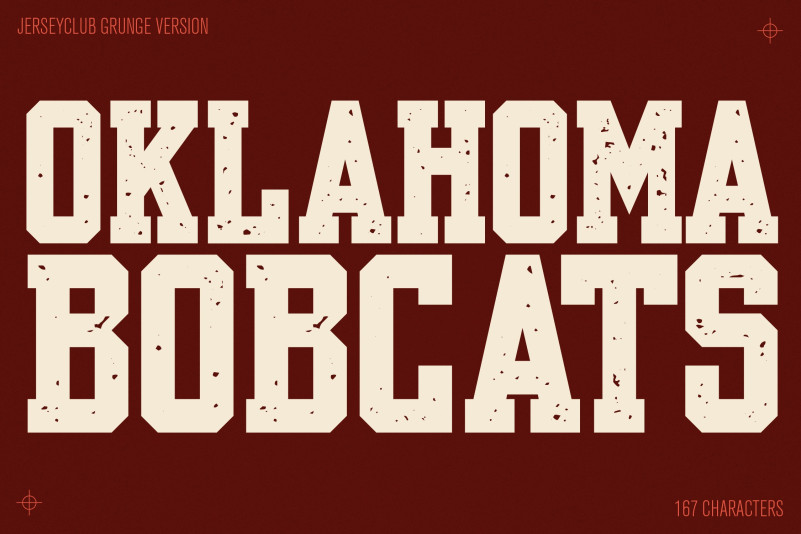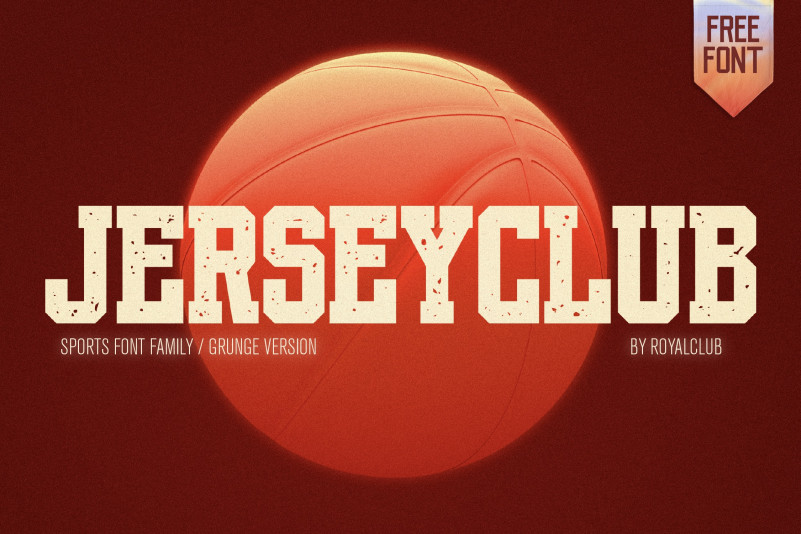
Jerseyclub Grunge Font
Jerseyclub Grunge Slab Serif Font, It can easily be matched to an incredibly large set of projects, so add it to your creative ideas and notice how it makes them stand out!
JERSEYCLUB is a new complete typeface family designed for sports usage. Created to catch up with the lack of Sporty fonts with multilingual support, special characters, numbers and symbols, JERSEYCLUB comes in Serif and Sans Serif editions. Each edition comes in 3 weights (light, regular & bold) to match most sport topics and usage. JERSEYCLUB typefaces contains 167 glyphs, and all of them includes caps and small caps.
JERSEYCLUB is designed by Royalclub.